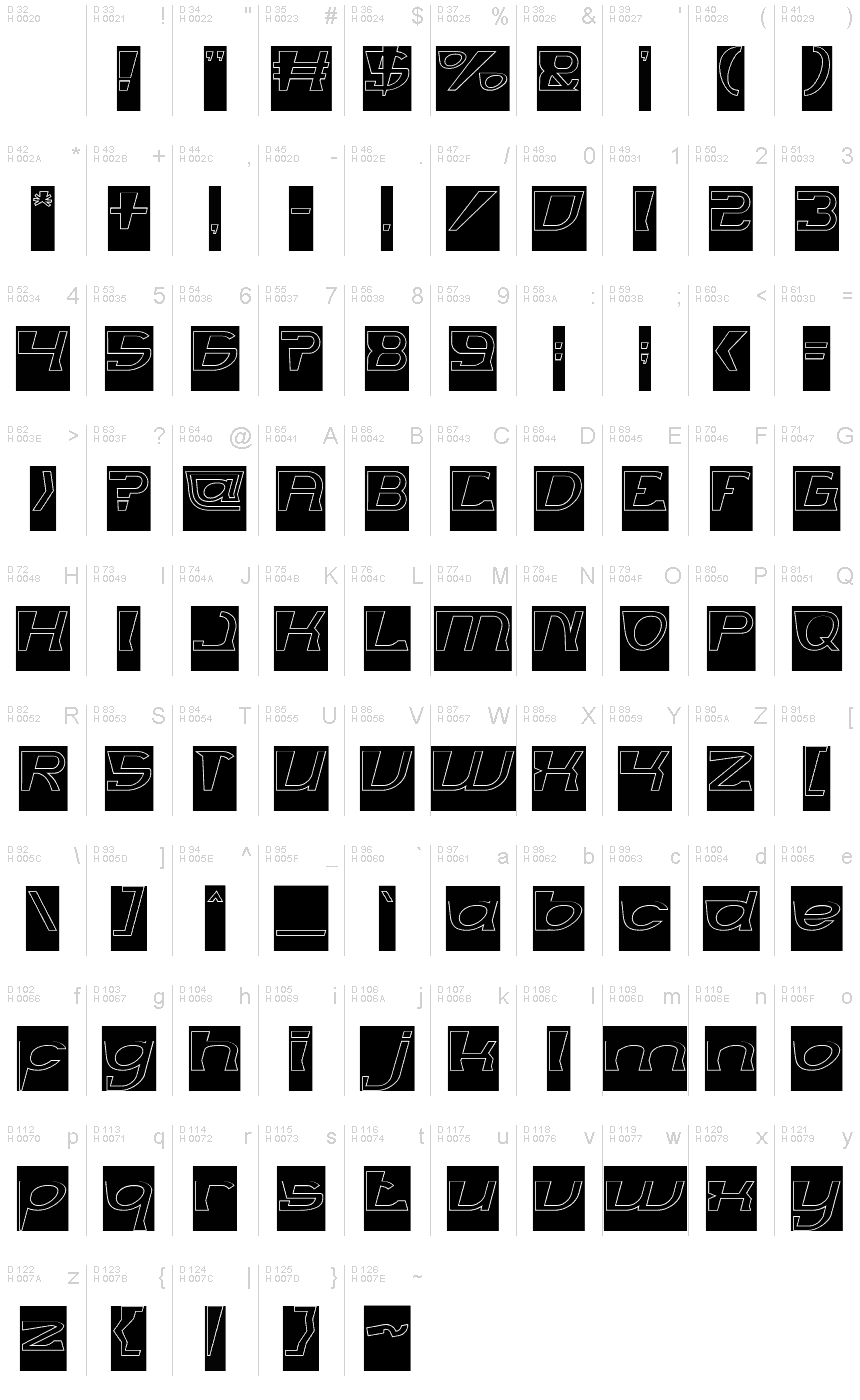
MERCURY-Hollow-Inverse
Mercury Hollow Inverse is a striking and unconventional display font that exudes a distinct techno-retro aesthetic. Its expanded letterforms and negative space create an eye-catching, almost futuristic visual impact.
The hollow, inverse design lends the font a bold, industrial feel, making it an excellent choice for headings, branding, and attention-grabbing applications. Mercury Hollow Inverse's unique style sets it apart, offering designers a versatile tool to craft visually arresting designs that evoke a retro-futuristic atmosphere.
Its expansive character width and dramatic negative space make it well-suited for a range of design contexts, from digital interfaces to print media.